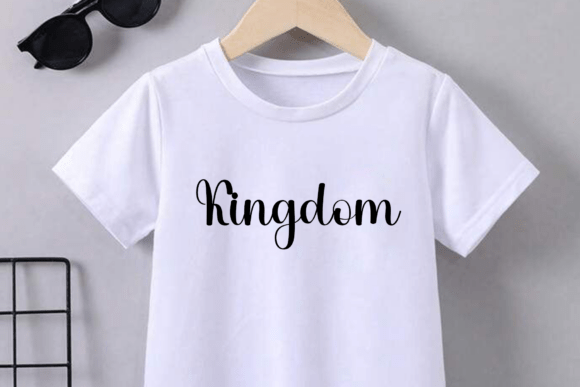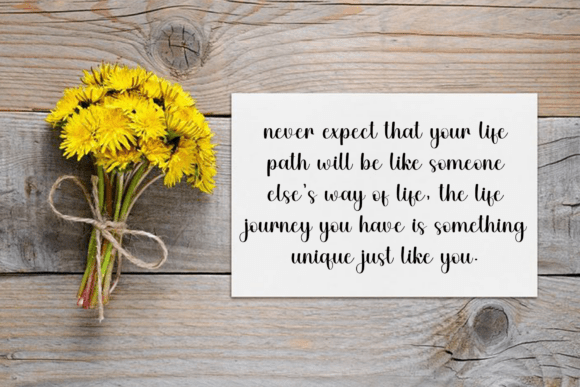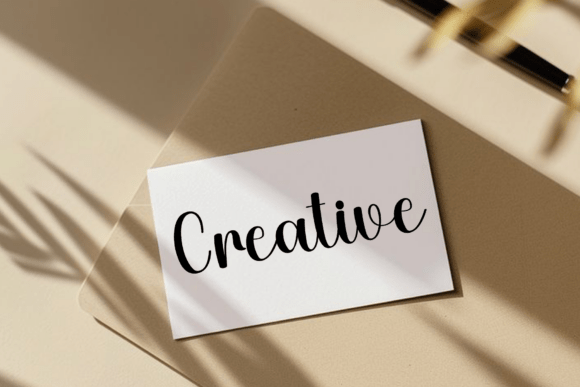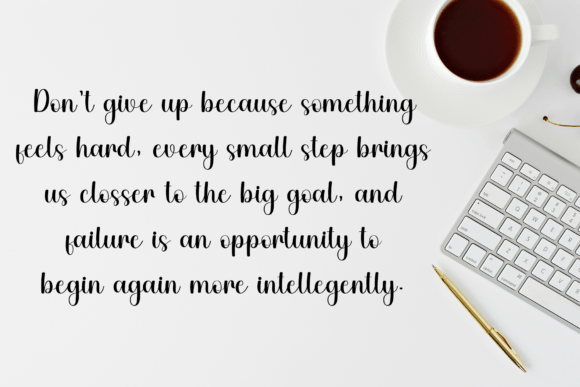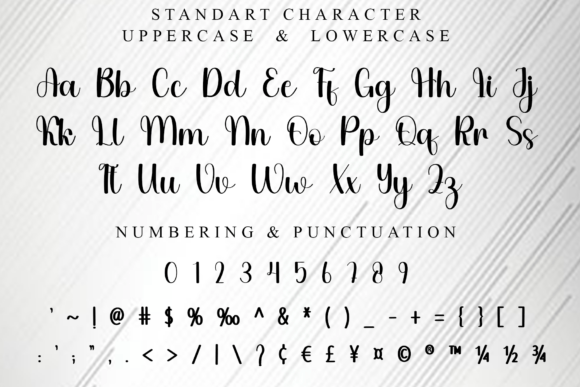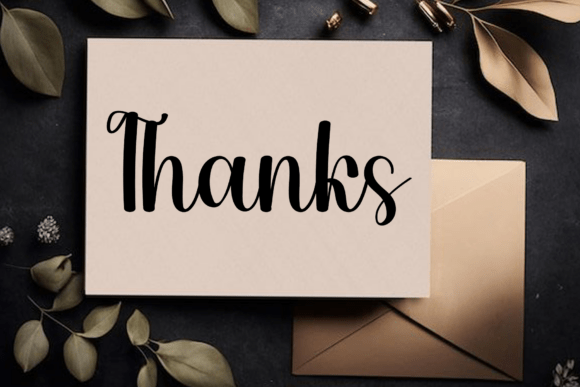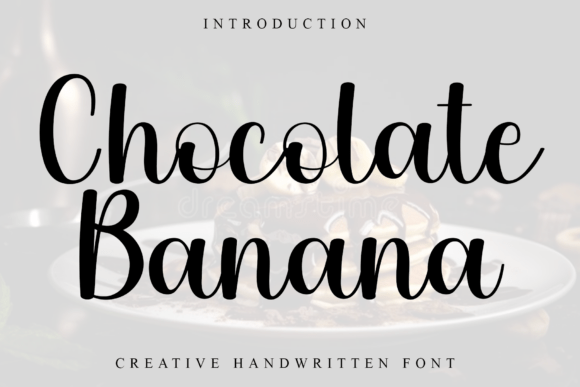
Introducing Chocolate Banana Font: A Festive and Merry Typeface for the Holiday Season
Are you looking for a font that embodies the spirit of the holiday season? Look no further than Chocolate Banana Font, a decorative and whimsical typeface that’s perfect for adding a touch of enchantment to your designs. With its festive elements and nostalgic ambiance, this font is ideal for greeting cards, gift tags, and holiday-themed projects.
What Makes Chocolate Banana Font So Special?
Chocolate Banana Font is a unique and eye-catching typeface that captures the magic of the holiday season. Its decorative elements and whimsical flair make it perfect for designers and crafters who want to add a touch of personality to their work. Whether you’re creating holiday greeting cards, gift tags, or festive decorations, this font is sure to bring a cheerful and nostalgic ambiance to your words.
Chocolate Banana Font is specifically designed for holiday-themed projects, making it the perfect choice for designers and crafters who want to create festive and engaging content. With this font, you can create:
- Holiday greeting cards that will make your loved ones feel special
- Gift tags that add a personal touch to your presents
- Festive decorations that will make your home or office feel merry and bright
One of the best things about Chocolate Banana Font is that it’s PUA encoded, which means you can access all of the amazing glyphs and ligatures with ease. This makes it easy to use the font in your designs, even if you’re not a professional typographer.
Why Choose Chocolate Banana Font?
There are many reasons why Chocolate Banana Font is a great choice for designers and crafters. Here are just a few:
- Unique and eye-catching design: Chocolate Banana Font is a one-of-a-kind typeface that’s sure to grab attention.
- Festive and merry spirit: This font embodies the spirit of the holiday season, making it perfect for holiday-themed projects.
- Easy to use: With PUA encoding, you can access all of the font’s glyphs and ligatures with ease.
- Perfect for designers and crafters: Whether you’re a professional designer or a crafter, Chocolate Banana Font is a great choice for adding a touch of personality to your work.
Tips and Tricks for Getting the Most Out of Chocolate Banana Font
Here are a few tips and tricks for getting the most out of Chocolate Banana Font:
- Experiment with different colors and textures: Add an extra layer of depth and interest to your designs by experimenting with different colors and textures.
- Use it in combination with other fonts: Chocolate Banana Font pairs well with other festive fonts, so don’t be afraid to get creative and try out different combinations.
- Make it your own: Add your own personal touch to your designs by customizing the font to fit your style.